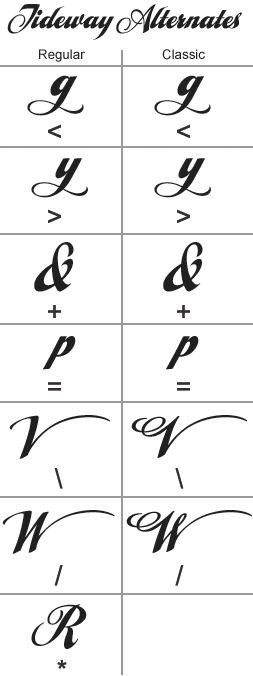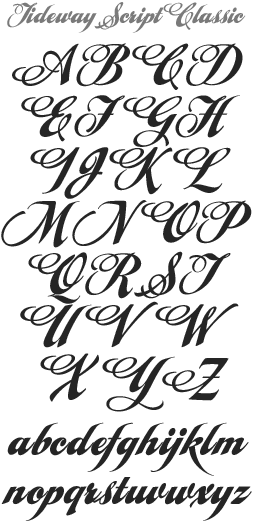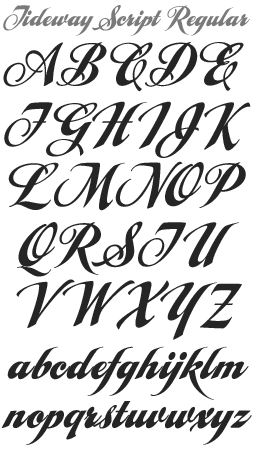
LHF Tideway Script Arthur Vanson delivers 3 much needed scripts that are neither too dainty or formal-- yet retain an air of sophistication. Wide strokes allow for many creative possibilities. Lowercase letters are identical in all versions.